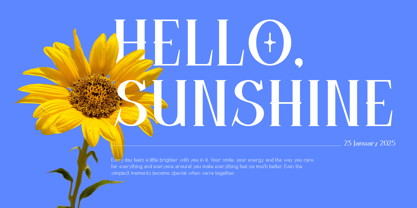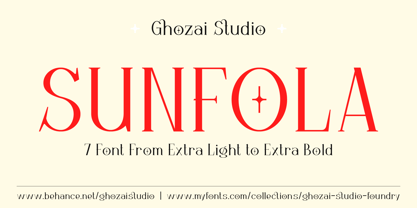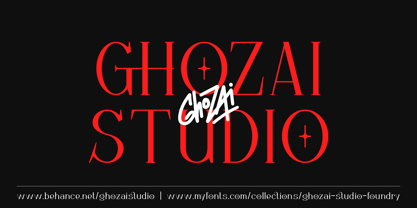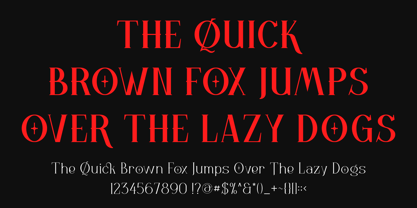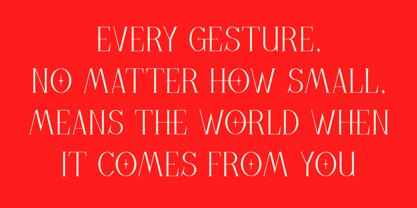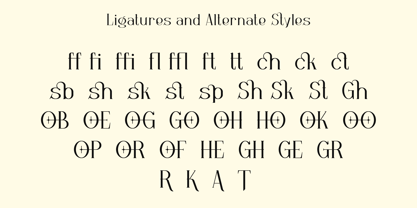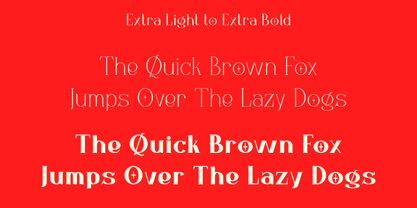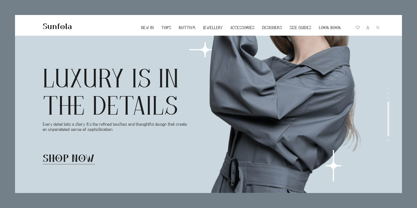
Sunfola
by Ghozai Studio
The Sunfola Font Family was designed by Manzur Ghozaali and published by Ghozai Studio. Sunfola contains 14 styles and family package options. More about this family
Sunfola is an elegant serif font combining thin and bold strokes creating high contrast and adding personality to the font. It is available in seven weight styles, ranging from extra light to extra bold with a star accent to make it unique and grab more attention. Sunfola also includes a wide range of ligatures, providing more options for your design needs. With its diverse range of styles, Sunfola is suitable for various design projects, such as luxury design (hotel logo, restaurant menu, restaurant poster or web, wedding invitation), fashion, band poster, headline, and many others.
Designers: Manzur Ghozaali
Foundry: Ghozai Studio